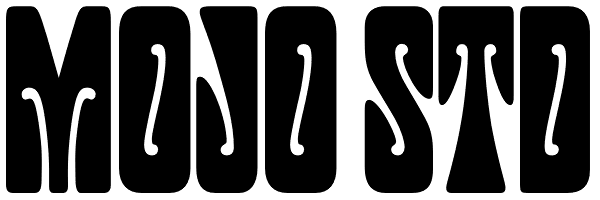
Mojo
Jim Parkinsons Mojo is an adaptation of a lettering style that was popularized by 1960s artists Wes Wilson, Victor Moscoso, and Rick Griffin. During the heyday of rock concert impresario Bill Graham, their psychedelic posters were seen all...